9 Aesthetic Fonts and Best Way to Use Them for Your Branding
Aesthetic fonts are likely the most stylish and artistically designed fonts available online. They offer exceptional output to your design and significantly influence how audiences interpret your brand. On top of that, they can also add value and uniqueness to your branding.
Whether in the fashion industry, lifestyle, beauty and makeup, art and design, or working with creative agencies, we’ve curated why you need this stylish typography and how to use it the best.
Why Does Your Brand Need Aesthetic Fonts?
Aesthetic fonts carry characteristics that allow you to convey your message and brand identity. Aesthetic can refer to something appealing, fashionable, and pleasing to the eye. These are some of the top reasons why you need this font type:
- Visual Appeal: They can instantly improve the visual appeal of your brand, catching the eye and drawing attention to the message you are trying to deliver.
- Elegance: They provide a touch of elegance and sophistication, enhancing your brand’s perspective.
- Unique Identity: These fonts set your brand apart from competitors and help you create an original, recognizable identity.
- Emotional Connection: An aesthetic font may evoke emotions, promoting a positive mood and resonating with your audience, building a better connection.
- Versatility: They are versatile, and you can use them in various design projects.
- Brand Recognition: Aesthetic fonts contribute to brand identification and make your products or services easily identifiable.
- Lasting Impression: They leave a lasting impression, which means your brand remains in the minds of your audience long after they encounter it.
How to Use Aesthetic Fonts for Your Branding
Use aesthetic font types to enhance your design; this will work if done correctly. Check out some tips you can follow to ensure you can improve your creative branding by choosing the right fonts.
Identify Your Goals
You must understand your goals, including what you want to achieve through the design. Apart from that, also understand your target audience, the message you want to convey, and what kind of impression you want to make.
By understanding these things, you can focus more and narrow your font choices. So you will be able to handle the large selection of fonts online.
What is the Context?
Next, determine the media and format for your design project. For example, you choose an aesthetic font with many curves because it will look good in larger sizes. In this case, to put it on a poster. However, this option may not be best on blogs or websites because too many bends make the text difficult to read.
Additionally, you should consider the design’s background, contrast, and color. These factors will have an impact on the level of visibility and readability of your design. Therefore, you need to choose them carefully and may need to experiment with different fonts and colors.
Choose The Font
Fonts are designed with different characteristics and are divided into several types. They are starting from serif, sans serif, display, script, to monospace. Find out the advantages and disadvantages of each type so you can choose the right font for your design.
For example, serif fonts that look traditional, formal, and authoritative are suitable for printed materials. Sans serif fonts are more suitable for digital media because they look modern, simple, and versatile.
Meanwhile, script fonts can add a touch of personality to your designs, but they can be challenging to read when placed on large media. You can use display fonts to attract attention, but they have the potential to be distracting if used excessively. Meanwhile, monospaced fonts are most appropriate for code.
Experiment with Font Pairing
Combining two fonts sounds fun and challenging. If successful, this can help improve your design. But be careful; the wrong pairing can clash with your design, lose beauty elements, and cause confusion.
As a tip, limit your choices to two or a maximum of three fonts. Ensure the fonts complement each other in size, style, and size. What if you need help with how to pair fonts? Choose a variety of fonts from the same font family, then create emphasis by using bold, light, or italic versions of the font.
Test Your Font
In the final stage, after you are sure about choosing a font, test the font on your design and make changes if necessary. You can change the color, size, or settings and see the difference. This way, you can determine which aesthetic fonts suit your design goals.
9 Aesthetic Fonts Ideas for Your Branding
Now you understand why you must incorporate aesthetic typefaces and learn to pick the perfect one for your brand. Below, you’ll find a selection of aesthetic fonts that can elevate your creative design.
1. City Mango – Modern Font for Branding
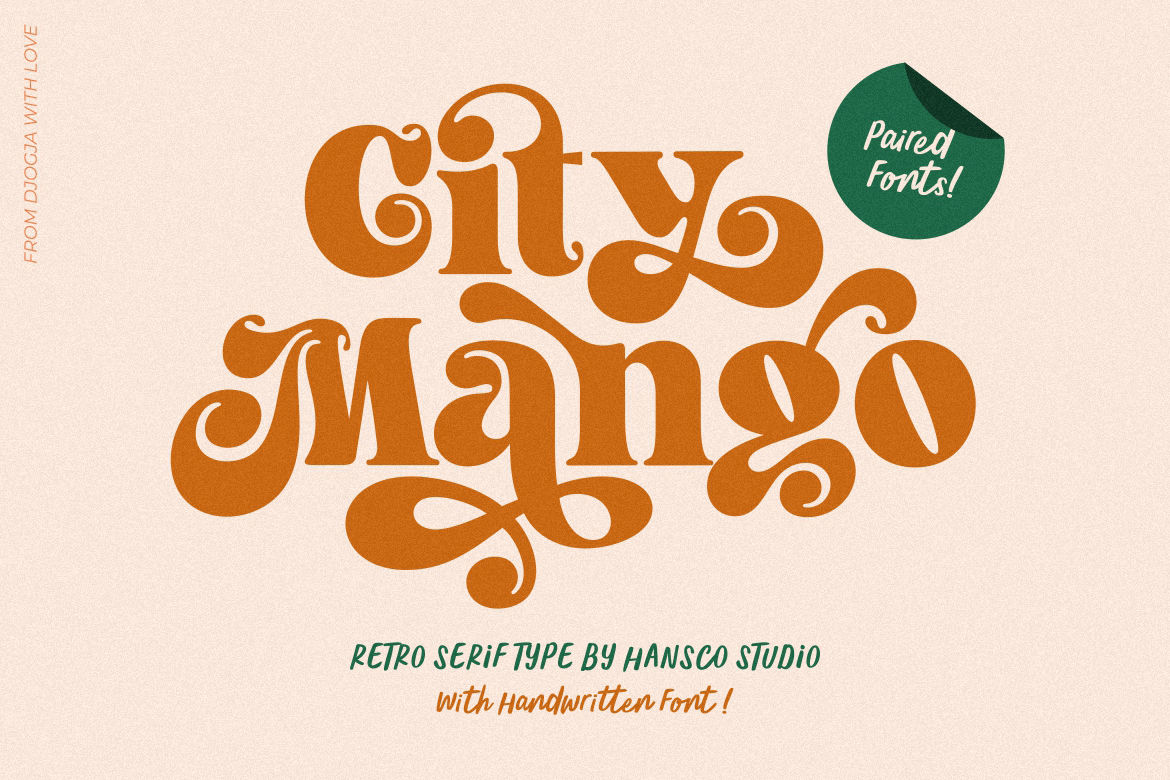
This modern font for branding offers a stylish curly alternative. City Mango is ideal for embedding in clothing brand logos, fashion, skincare product packaging, and even aesthetic projects.
Available in 2 paired font, from serif and handwritten, as well as opentype formats, City Mango has elegant characteristics and reminds you of the timeless beauty of Cleopatra. A tip: if you want a more fashionable look, insert stylish alternates between words.
2. Classy Vogue, the Stylish Serif
Classy Vogue is a display serif font with a touch of luxury and sophistication. Versatile with its beautiful style, this font is undoubtedly a perfect choice for various designs, especially those focused on branding.
Whether you’re working on a packaging design, logo, invitation, or other creative endeavor, Classy Vogue is a font that will quickly meet your needs and leave a lasting impression.
3. Aqala Display Font
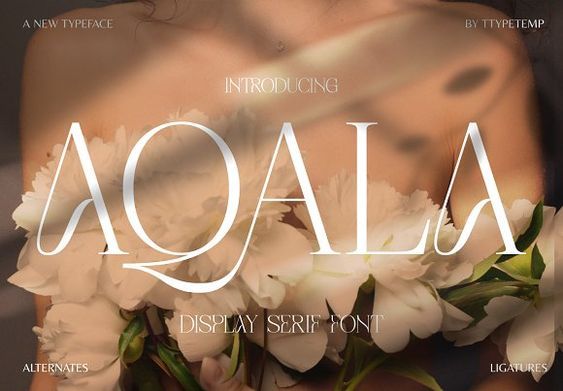
Like a design made with love, that is Aqala’s impact on your design. This display font is more than just a font that beautifies your work; it is a work of art meticulously crafted with attention to detail.
Through Aqala, you’ll find a treasure trove of alternate letters and ligatures waiting to be discovered. Selecting the ones that resonate with your creative vision allows you to craft a display font that perfectly aligns with your unique aesthetic preferences.
It’s an ideal choice for those working on clothing branding, editorial content, product packaging, logo design, magazine headers, or simply seeking a stylish text overlay to enhance the visual appeal of any background image.
4. Frastha Display Serif Font
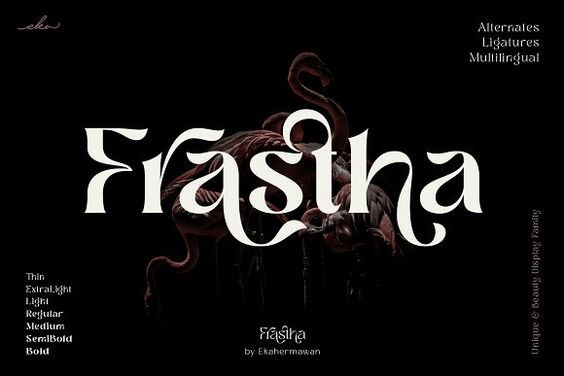
Frastha is a unique display serif font that offers a versatile spectrum of 7 weights, from thin to bold. Ideal for branding, posters, logo design, labels, magazines, merchandise, invitations, presentations, advertisements, or even inspirational quotes, Frastha is your go-to choice for stunning results.
Frastha is one of the best aesthetic fonts that brings elegance and versatility to typographic projects. It’s the perfect companion for anyone seeking to make a lasting impression and create visually stunning designs across various mediums.
5. Cyrano – Serif typeface
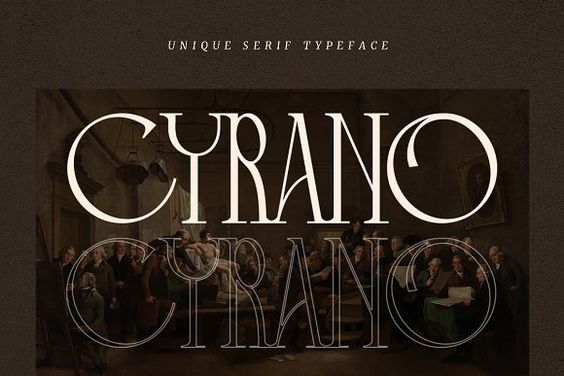
Cyrano is a distinct serif typeface designed for modern projects with a European flair. Each letter has been precisely created to give your text a stylish and lovely look. This font is suitable for delivering refined and chic logos, titles, and magazine layouts for fashion-related businesses. Cyrano is the secret to elegantly infusing European refinement into your work.
6. Romantic – The ELegant, Aesthetic Serif Font
Romantic Serif is a sophisticated display serif font with curled tails and a unique look ideal for various purposes. The design was inspired by romantic vibes and transformed into a modern yet luxurious design. This typeface looks stunning and will fit well in any design project.
It is an excellent choice for posters, logos, crafts, books, branding, print templates, quotes, packaging, invitations, product labels, advertising, and more. The package only comes in uppercase (no lowercase) and includes symbols, punctuation, ligatures, numerals, and stylistic alternates. This font is PUA encoded, so you can easily access the lovely glyphs and swashes!
7. Glamour Chic – The Elegant Serif
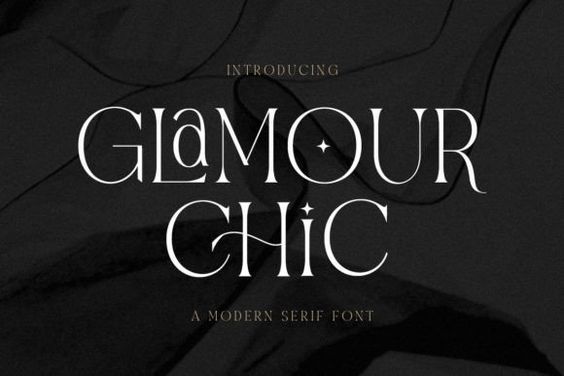
Discover Glamour Chic, an elegant all-caps serif font designed to infuse your projects with style. Its unique feature allows you to blend uppercase and lowercase letters in the same word seamlessly.
Plus, with ligatures, your designs will exude even more charm and allure. Embrace its versatility, as Glamour Chic supports multiple languages, making it the perfect choice for various stunning and attractive projects.
8. Pastel Orange
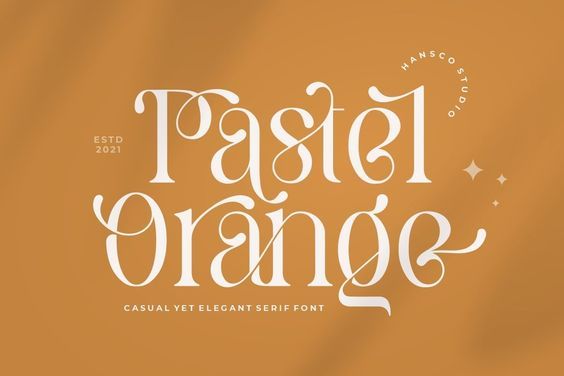
Introducing Pastel Orange, one of the stunning aesthetic fonts recommended for your design. It is a modern display serif font with a feminine and retro flair while adding an elegant feel to your artwork. This font is perfect for creating eye-catching branding, logos, packaging, posters, and more.
Pastel Orange offers various alternative characters in lowercase and uppercase, including ligatures, providing numerous design ideas. The package includes full lowercase, uppercase, punctuation, numbers, and multilingual support.
9. Brolimo Typeface
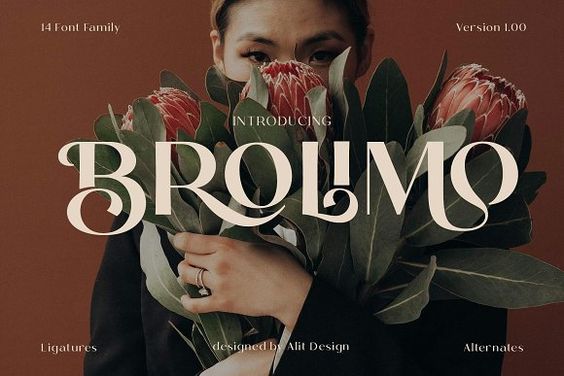
Meet the Brolimo, a versatile collection comprising 14 unique styles, from thin to heavy. This sleek and classy typeface is designed to capture your target audience and infuse your designs with a seamless blend of modernity and luxury, creating a simple yet enchanting character that exudes sophistication. These fonts perfectly match design concepts centered around luxury, elegance, fashion, romance, and more.
You’re now set to select the ideal aesthetic font for your branding, and we’ve compiled a list of nine top recommended aesthetic fonts. This selection will guide you in creating an outstanding head-turner design.